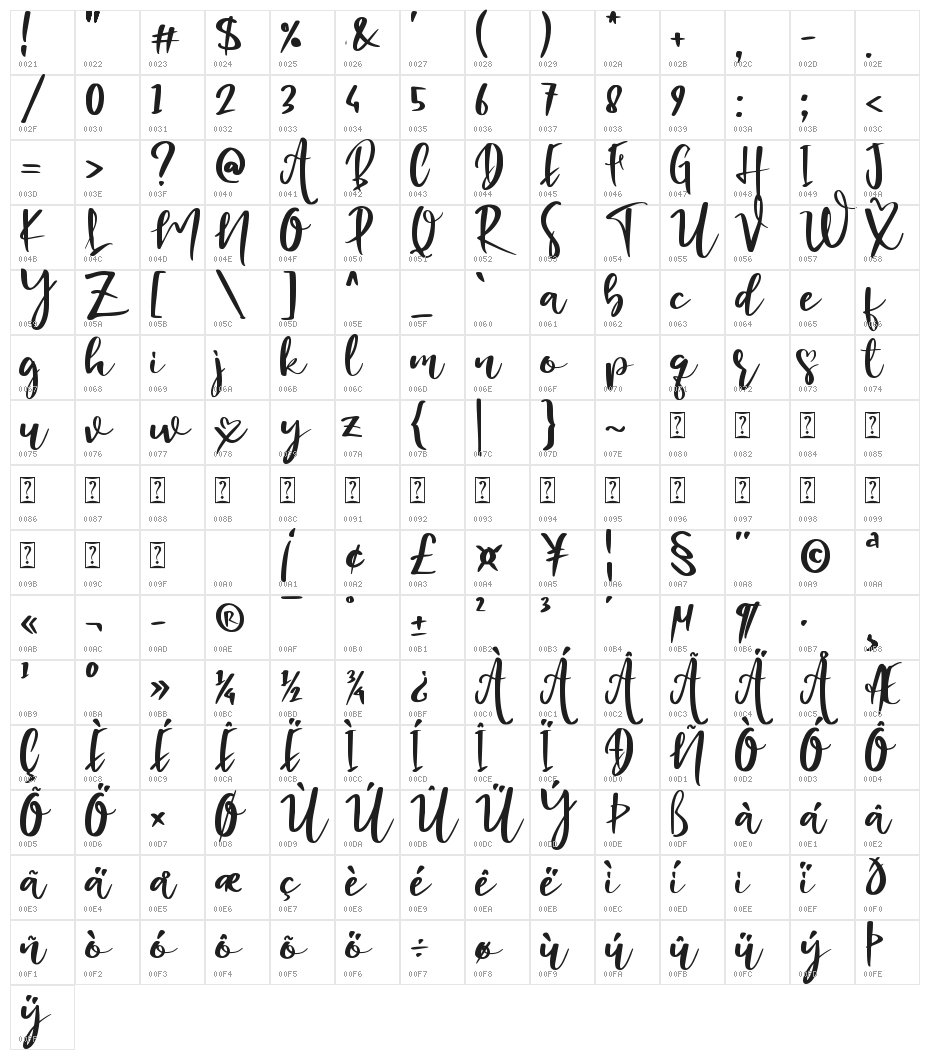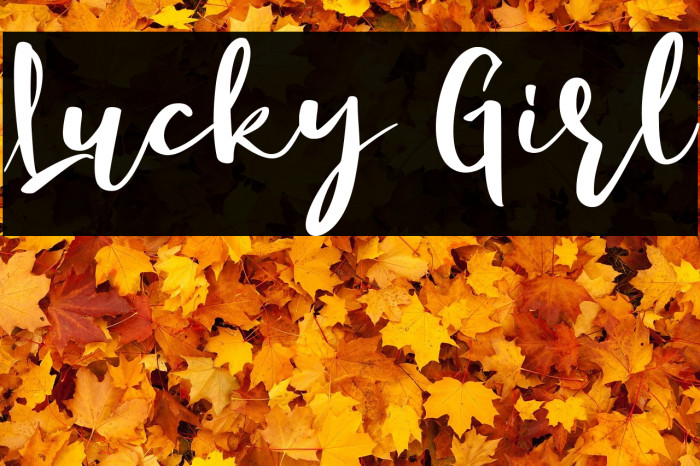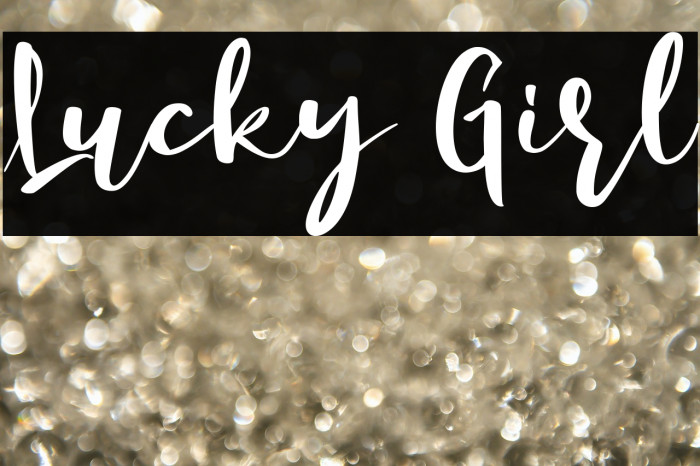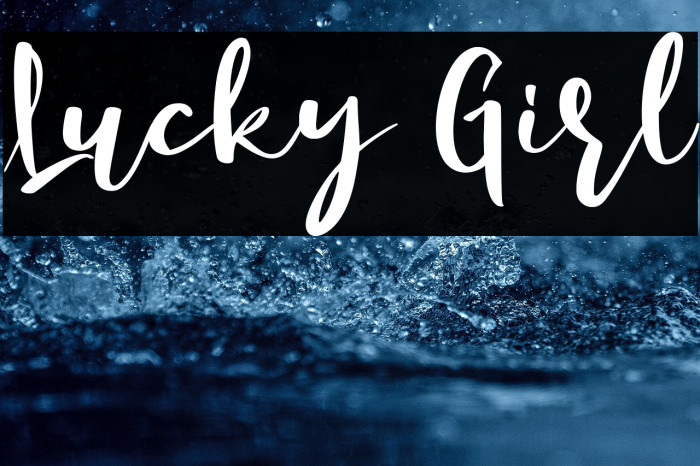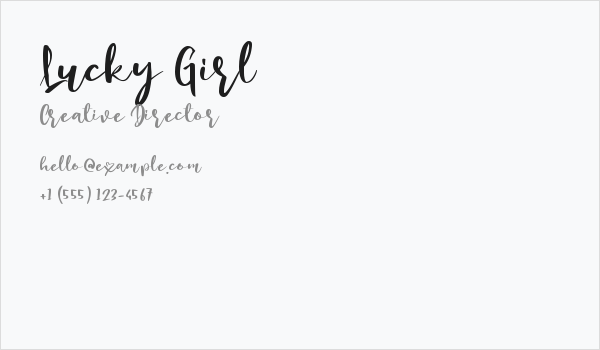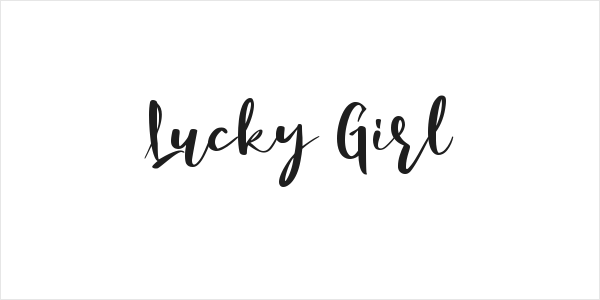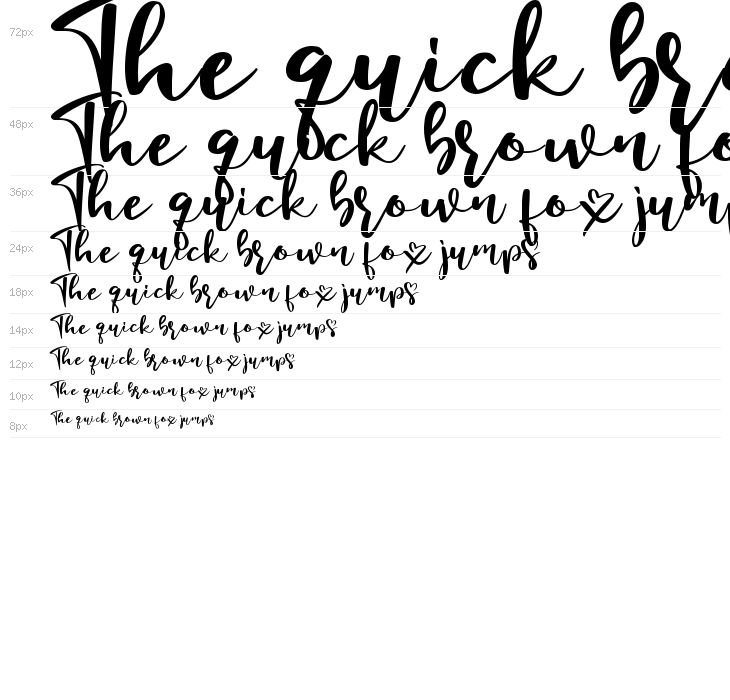
Lucky Girl Font
Lucky Girl Description
This font exudes a playful and whimsical charm, characterized by its flowing, cursive style. The letters are bold and expressive, with a hand-drawn feel that adds a personal touch. Each character is uniquely crafted, with varying stroke widths that create a dynamic and lively appearance. The uppercase letters are tall and slightly slanted, while the lowercase letters maintain a consistent rhythm with loops and swirls. The numerals are equally bold and maintain the playful aesthetic. Special characters are creatively designed, adding to the font's overall artistic flair. This font is perfect for projects that require a touch of personality and creativity.
| Proposed Projects | Ideal for greeting cards, invitations, branding, and social media graphics. |